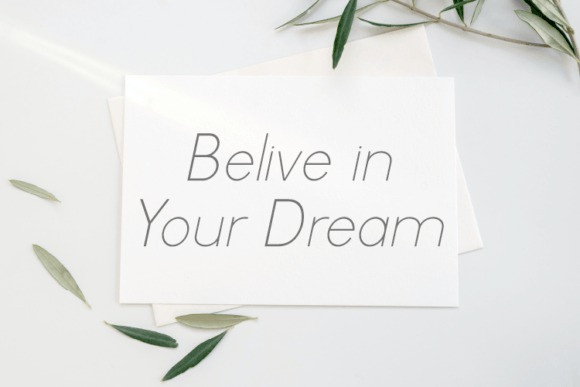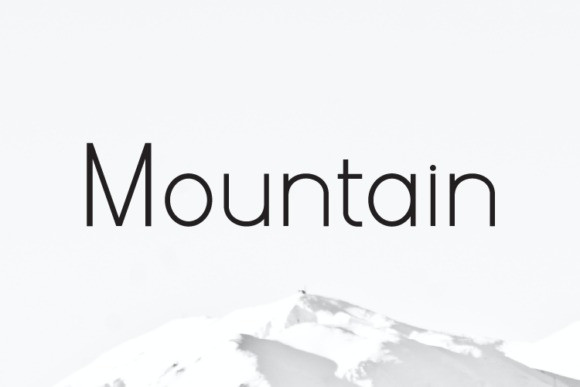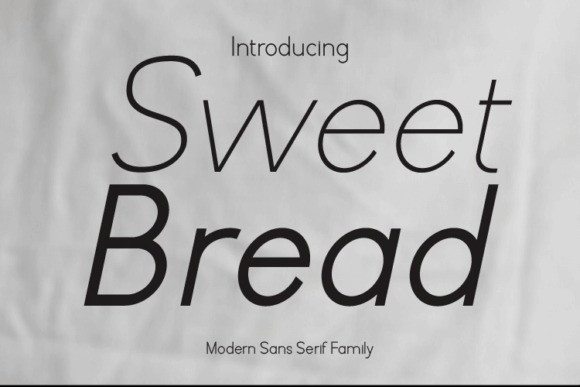
Sweet Bread Font
Sweet Bread Sans Serif Font is a modern and cool sans serif font. Its elegant and cool look makes it the perfect choice for logos, branding, invitations, stationery, wedding designs, social media posts, and so much more.